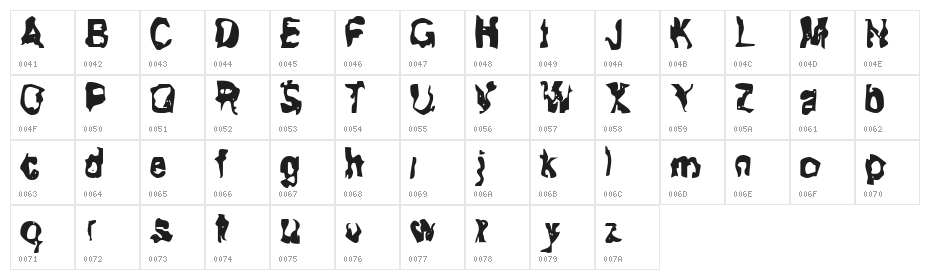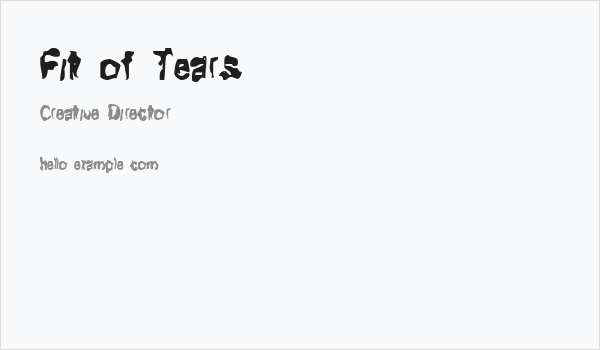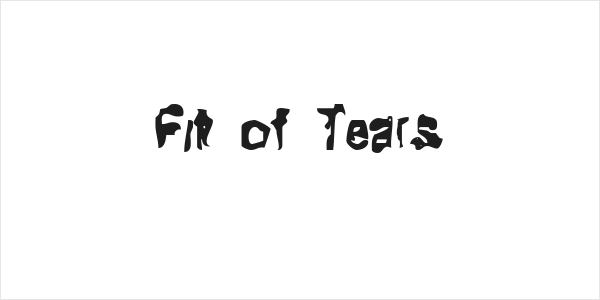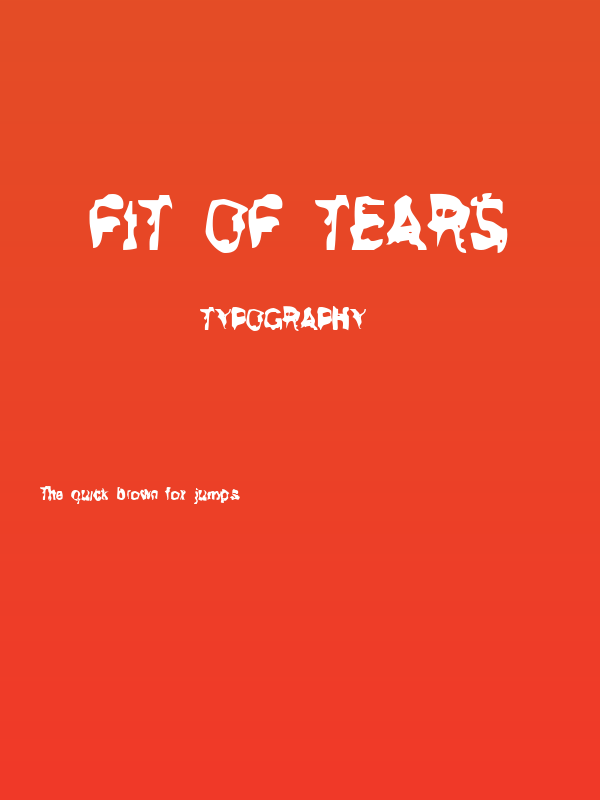
Fit of Tears Font
Fit of Tears Description
This font features a highly decorative and artistic style, characterized by its irregular and fluid shapes that resemble ink blots or tears. The letters have a bold presence with uneven edges and varying thickness, creating a dynamic and somewhat chaotic appearance. The overall design is reminiscent of abstract art, making it stand out with its unique and expressive form. The font's playful yet mysterious nature makes it suitable for creative projects that aim to capture attention and evoke emotion.
| Proposed Projects | Ideal for album covers, posters, artistic branding, and creative event invitations. |